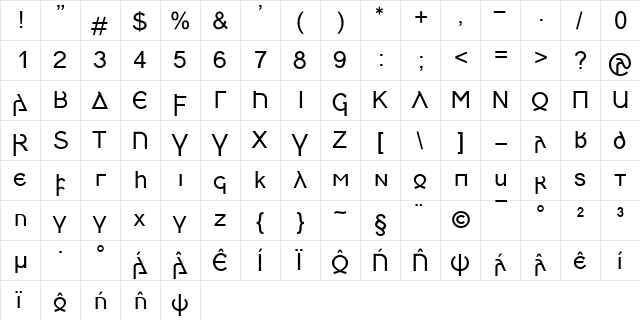
Skeirs Normal
| Designer | Robert Pfeffer, Hessen. |
Design Context for Skeirs Typeface
Skeirs takes a measured approach to typography — its balanced proportions and neutral character make it a reliable workhorse for both digital and print work.